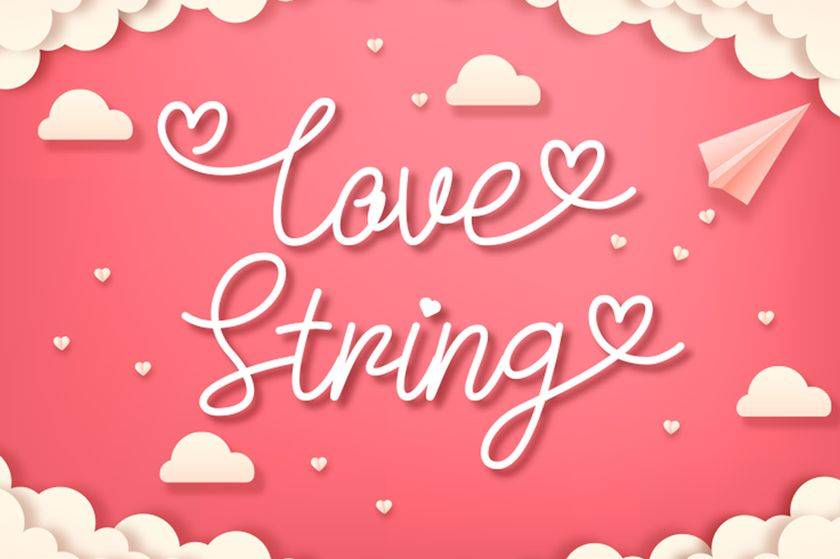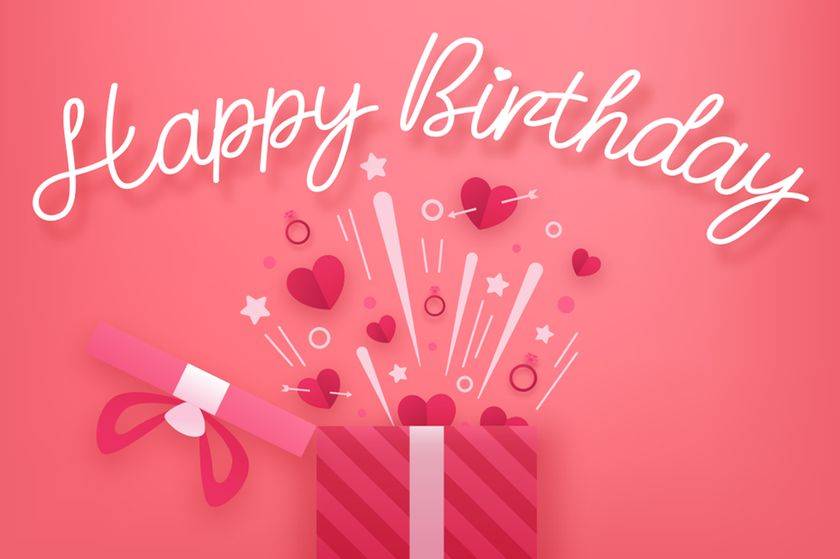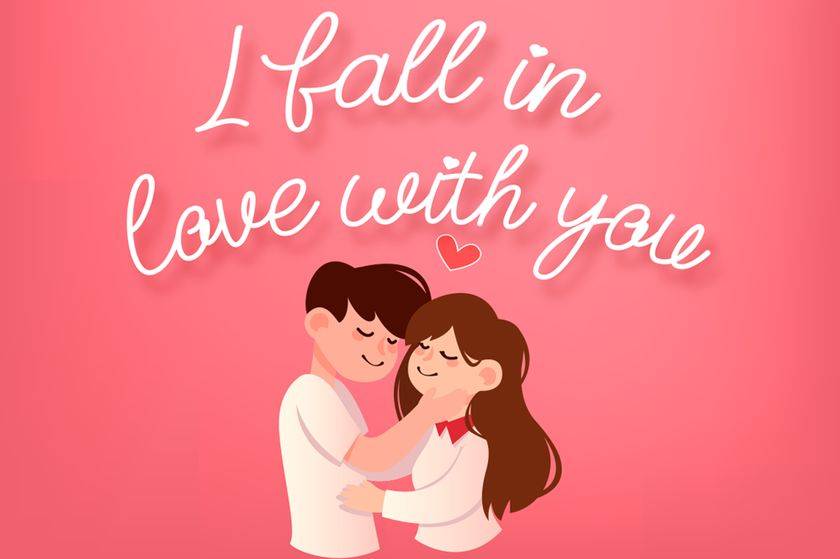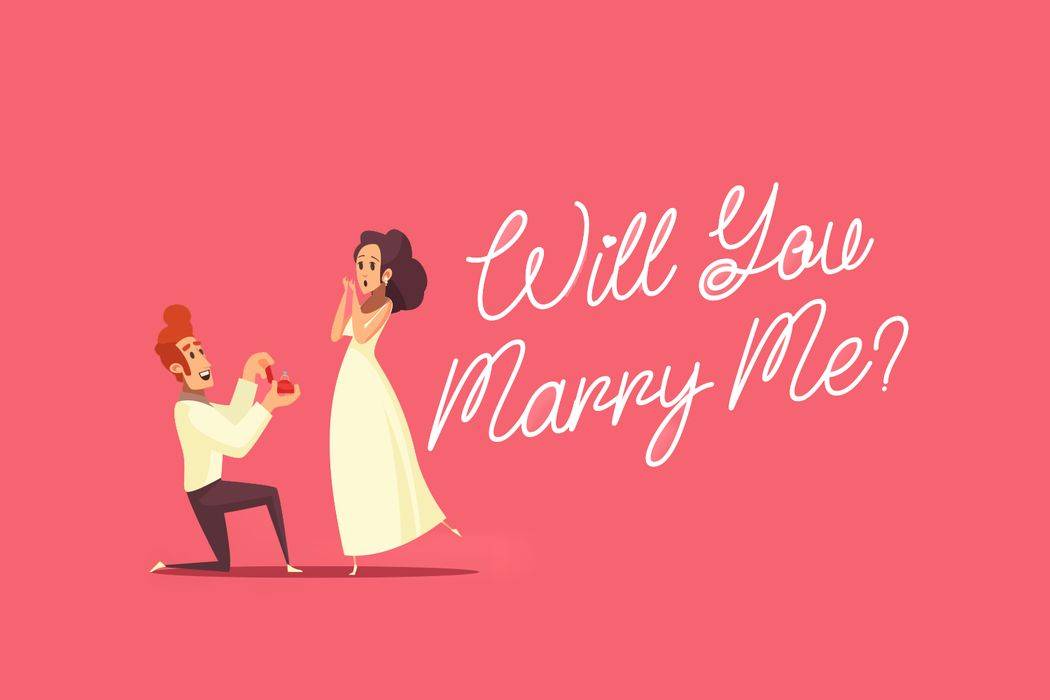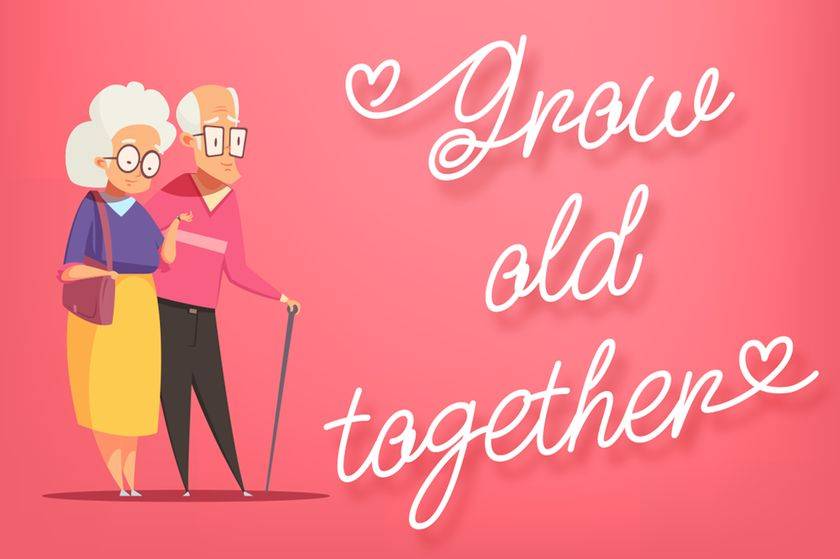
Love String Font is a delicate and elegant script typeface featuring smooth, flowing lines that mimic natural handwriting with a playful, romantic touch. Its tall, slender letterforms and subtle curves create a light and airy feel, perfect for designs that want to convey charm and warmth, such as wedding invitations, greeting cards, and feminine branding. This font’s graceful style works beautifully for headlines and decorative text where a soft, personal touch is desired.
Love String Font
About Love String Font
| Font family | Love String Font |
| Release date | 2019-09-22 |
| Designer | Fadli Ramadhan Iskandar - Attype Studio |